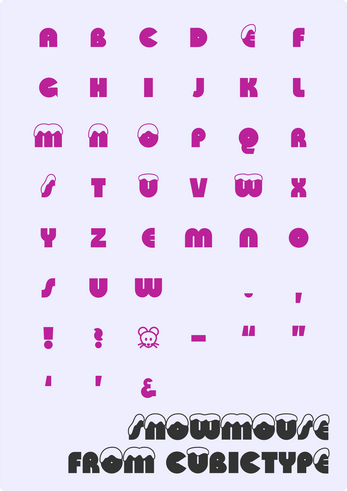
Snowmouse font
Snowmouse is wintery font that comes with snow on top! Only some of the letters have snow (those that spell snowmouse), and the snow can be switched off with the ss01 OpenType Layout Feature.
Instead of a « * », you can a bonus mouse! So cute.
The design is a copy of the capitals (only) from Papirtis Pink Mouse, with added snow.
The character repertoire is capitals only with a minimal set of punctuation, quotes, and symbols.